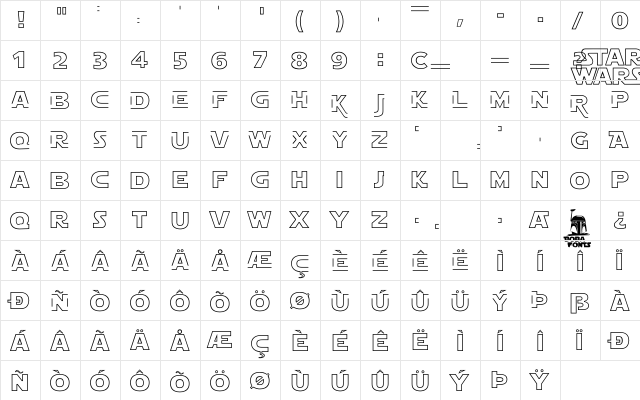
Star Jedi Hollow Regular
Design Context for Star Jedi Hollow Typeface
Star Jedi Hollow offers clean, dependable letterforms without strong stylistic allegiance, making it a practical choice for designers who need flexibility.